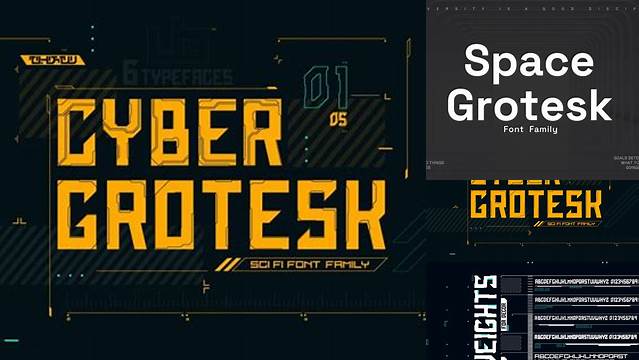
Hey guys! Are you on the hunt for a font that screams modern, futuristic, and unique? Look no further! In today's digital age, where visual communication is paramount, choosing the right font can make all the difference. Cyber Grotesk font is a typeface that perfectly embodies these qualities. It's a versatile font family that can elevate your designs, whether you're working on a website, a logo, a poster, or any other creative project. In this comprehensive guide, we'll dive deep into the world of Cyber Grotesk, exploring its characteristics, applications, and, most importantly, how you can download it for free. We’ll also discuss the importance of typography in design and how Cyber Grotesk can help you achieve your desired aesthetic. So, buckle up and get ready to discover the power of this amazing font! We’ll cover everything from its origins and design principles to its practical applications and where you can find it for your projects. Whether you’re a seasoned designer or just starting out, this guide will provide you with the knowledge and resources you need to make the most of Cyber Grotesk. Let's jump right in and explore the exciting world of typography!
The beauty of Cyber Grotesk lies in its ability to blend seamlessly into various design contexts. Its clean lines and geometric shapes give it a contemporary feel, while its subtle nuances add a touch of personality. This makes it an excellent choice for projects that require a balance between sophistication and edginess. From sleek corporate websites to eye-catching marketing materials, Cyber Grotesk can help you create a visual identity that truly stands out. Furthermore, the availability of free downloads makes it accessible to everyone, regardless of their budget. This is particularly beneficial for students, freelancers, and small businesses who are looking for high-quality typography without breaking the bank. By offering a free alternative to premium fonts, Cyber Grotesk democratizes design and empowers creators to express their vision without limitations. In the following sections, we will delve into the specifics of what makes Cyber Grotesk so special, and how you can leverage its unique characteristics to enhance your own creative work. We'll also explore the various places where you can find and download this font for free, ensuring that you have all the resources you need at your fingertips. So, keep reading to discover the endless possibilities that Cyber Grotesk can bring to your designs!
What is Cyber Grotesk Font?
Cyber Grotesk is a modern sans-serif font characterized by its clean lines, geometric shapes, and futuristic aesthetic. It's a typeface that exudes a sense of innovation and technological advancement, making it a popular choice for projects that aim to convey a cutting-edge feel. Think about technology startups, digital marketing agencies, and even sci-fi themed designs – Cyber Grotesk fits right in! This font family is not just about aesthetics; it’s also about functionality. Its readability is top-notch, ensuring that your message is conveyed clearly and effectively. Cyber Grotesk’s design principles focus on simplicity and clarity, making it easy to read across various mediums, from digital screens to printed materials. The absence of serifs (the small decorative strokes at the end of letterforms) gives it a minimalist and contemporary appearance, which is highly valued in modern design trends. The geometric construction of the letters adds a sense of precision and sophistication, making it suitable for professional and creative applications alike. Whether you're designing a website, creating a brand identity, or crafting a marketing campaign, Cyber Grotesk can help you achieve a polished and impactful look.
Moreover, Cyber Grotesk often comes in various weights and styles, allowing for versatility in design. You might find light, regular, bold, and italic versions, each serving a different purpose. This flexibility is crucial for creating visual hierarchy and ensuring that your text is both readable and visually appealing. For example, you might use the bold weight for headings to grab attention, the regular weight for body text to ensure readability, and the italic weight for emphasis or quotes. The ability to mix and match these styles within the same design project helps maintain consistency while adding visual interest. This level of detail and consideration in the font's design makes Cyber Grotesk a valuable asset for any designer. Additionally, the futuristic aesthetic of Cyber Grotesk can evoke a sense of innovation and progress, making it an ideal choice for brands and projects that want to be seen as forward-thinking. Its clean, uncluttered appearance also lends itself well to minimalist designs, where simplicity and clarity are key. Overall, Cyber Grotesk is a versatile and stylish font that can enhance the visual appeal and impact of a wide range of design projects.
Key Characteristics of Cyber Grotesk
- Clean Lines: The font features crisp, uncluttered lines that contribute to its modern look.
- Geometric Shapes: Its letterforms are based on geometric shapes, giving it a structured and precise feel.
- Futuristic Aesthetic: The overall design evokes a sense of technology and innovation.
- Versatility: Cyber Grotesk works well in various design contexts, from web to print.
- Readability: Despite its unique style, the font remains highly readable, ensuring your message is clear.
- Use it sparingly: While Cyber Grotesk is a great font, overusing it can make your design look monotonous. Use it strategically for headings, logos, or other key elements. The principle of